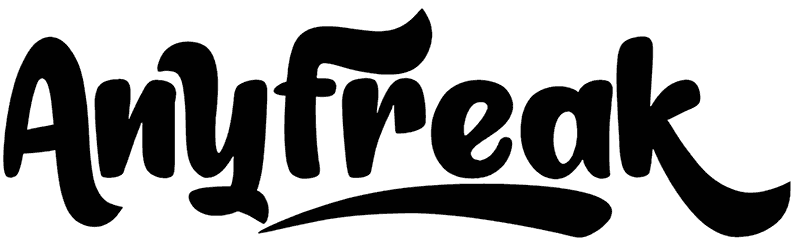
Anyfreak Font
Are you always hunting for the best fonts for your creative projects? Then Anyfreak is made for you. This summer font has a very happy and lively mood, and for this reason, it is a very good option for summer designs or posters for happy festivals. The special curvature of the letters next to their elongated ends makes Anyfreak look satisfying and pretty for any project.